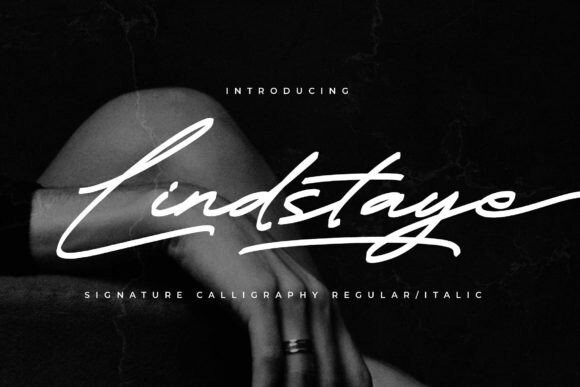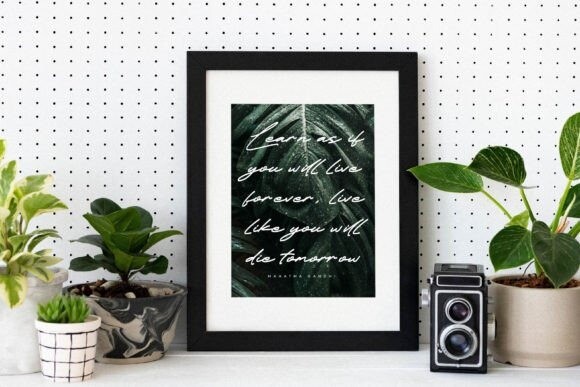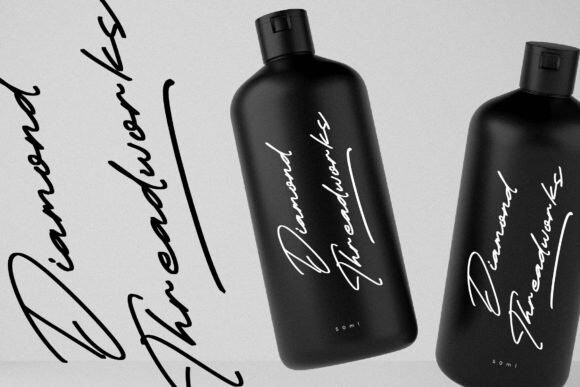
Lindstaye Font
Lindstaye Font – Signature Calligraphy , from Glorytype Studio, suitable for any projects such as: logos, branding projects, homeware designs, product packaging, mugs, quotes, posters, shopping bags, t-shirts, book covers, name card, invitation cards, greeting cards, label, photography, watermark, special events, and all your other lovely projects that need a beautiful script taste.